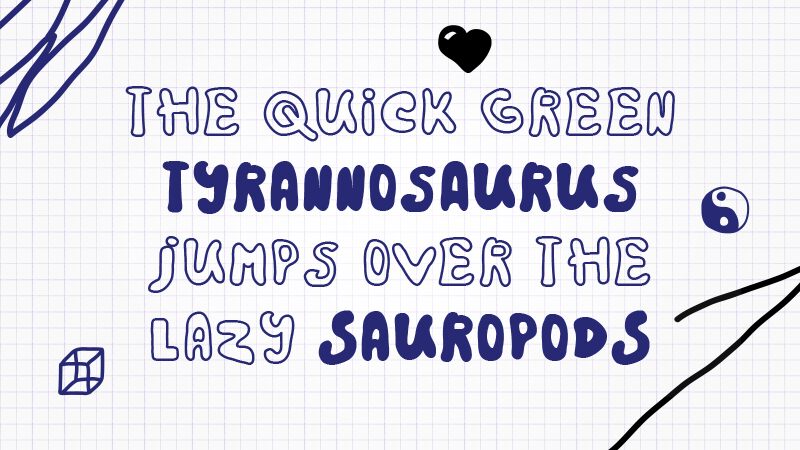
Rainbow 2000 font is bold cartoon typeface designed by GGBotNet.
Präsentation und Schriftprobe von Rainbow 2000 Bold
Rainbow 2000
The font was created according to my drawings of the 2000.